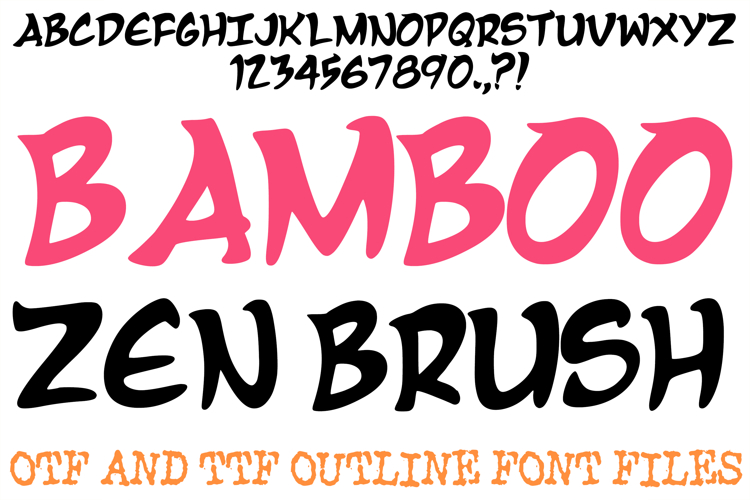
The Bamboo Zen Brush Font is an elegant, high-energy display typeface inspired by the fluid strokes of traditional East Asian calligraphy and dynamic retro comic lettering. Combining sweeping, expressive curves with sharp, tapered brush terminals, this typeface brings an organic yet powerful rhythm to any layout. It is an exceptional tool for designers crafting martial arts workshop flyers, high-impact gaming logos, culinary branding for Asian fusion restaurants, and bold graphic novel title cards.
The design beautifully replicates the look of manual ink-and-brush work, showcasing a natural, confident weight variation within each letterform. The balanced interplay of smooth, rounded arcs and razor-sharp flick details gives the entire alphabet an artistic, flowing momentum that easily leaps off the page. Whether you are building an identity for a wellness brand or designing striking apparel prints, this font delivers a clean, hand-painted aesthetic that commands immediate attention.
Why Your Designs Will Stand Out
Fluid Calligraphic Stroke Paths: Beautifully mimics real ink-on-paper dynamics, offering a rich sense of human craftsmanship and artistic motion.
Tapered Precision Points: Sharp, clean-cut terminals add a crisp, modern edge to the traditional brush-style architecture.
High-Impact Silhouette Weight: The deliberate, bold thickness of the characters ensures prominent visibility across digital screens and large-format print media.
Versatile Graphic Energy: Effortlessly transitions between a serene, zen-focused aesthetic and a high-velocity, action-oriented graphic layout.